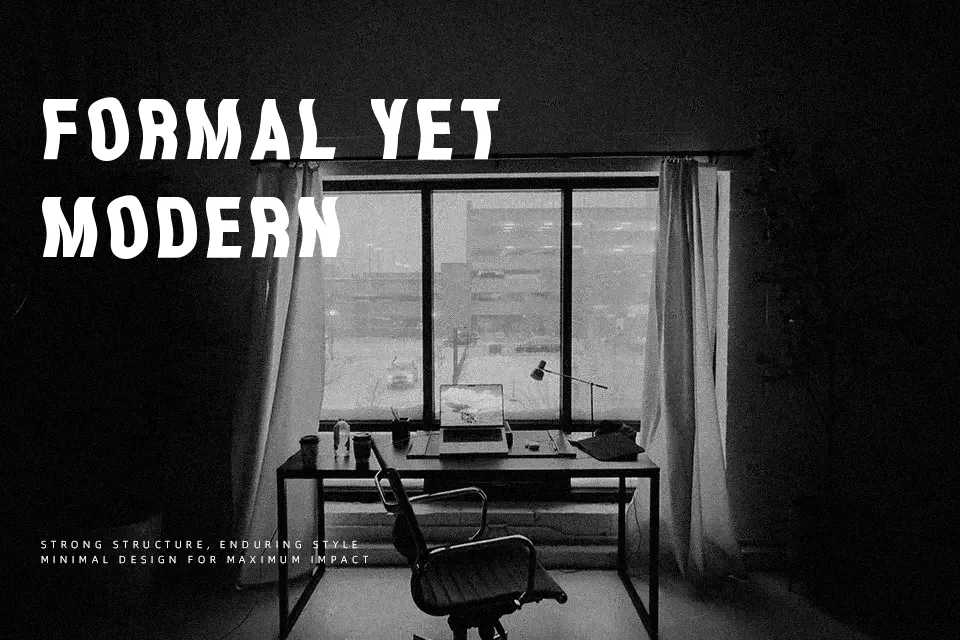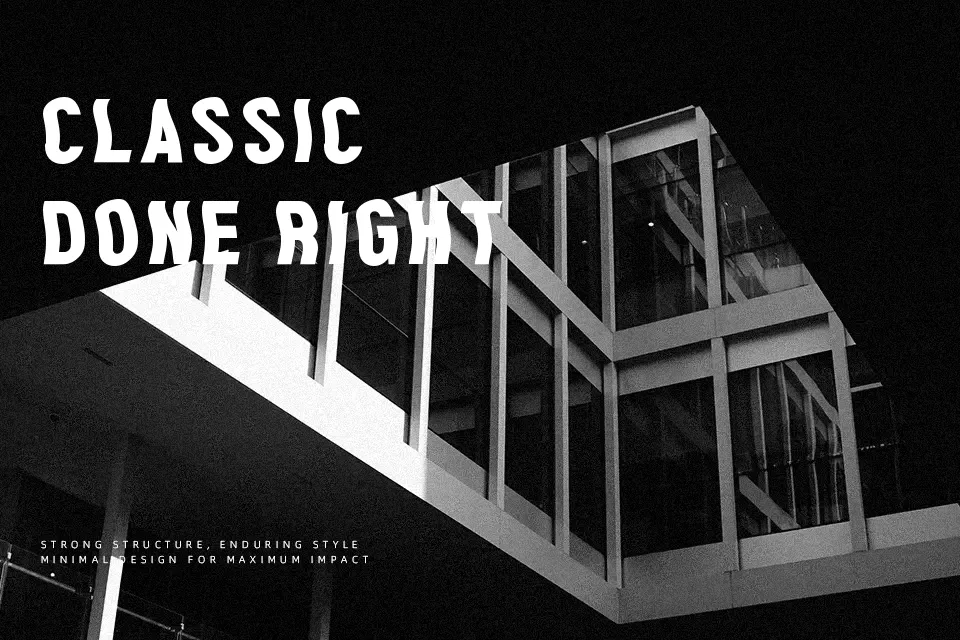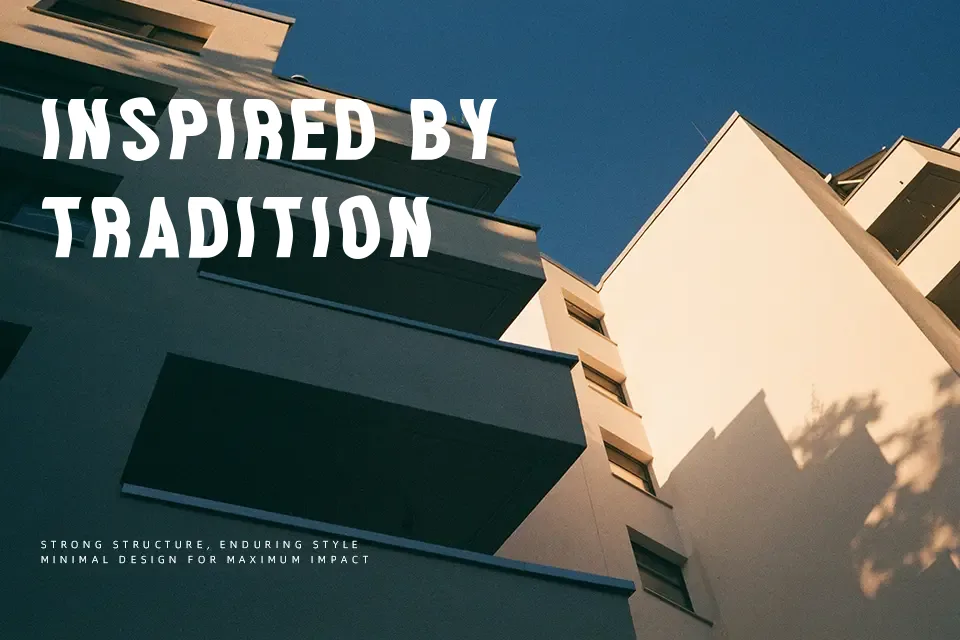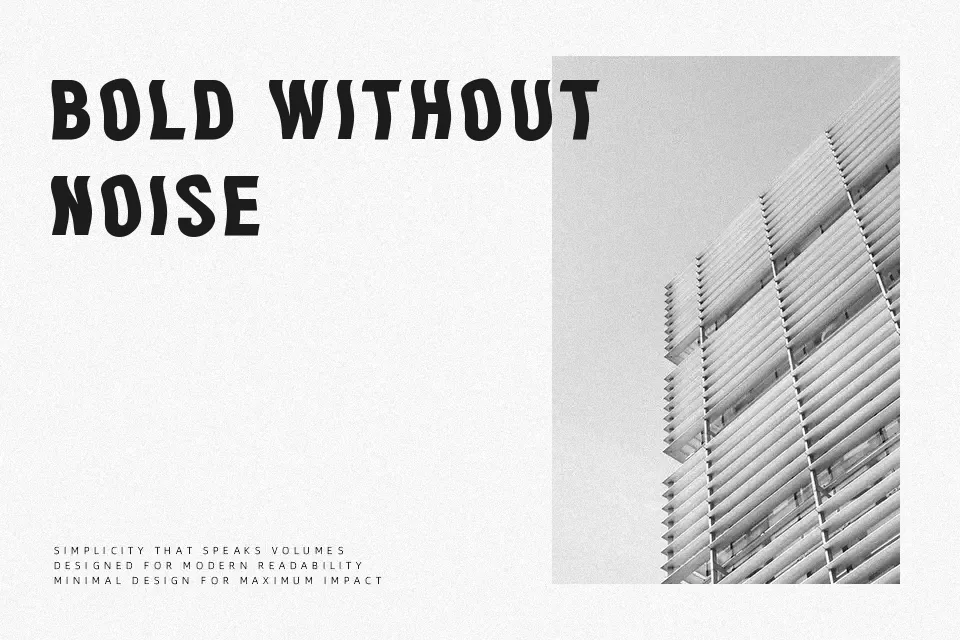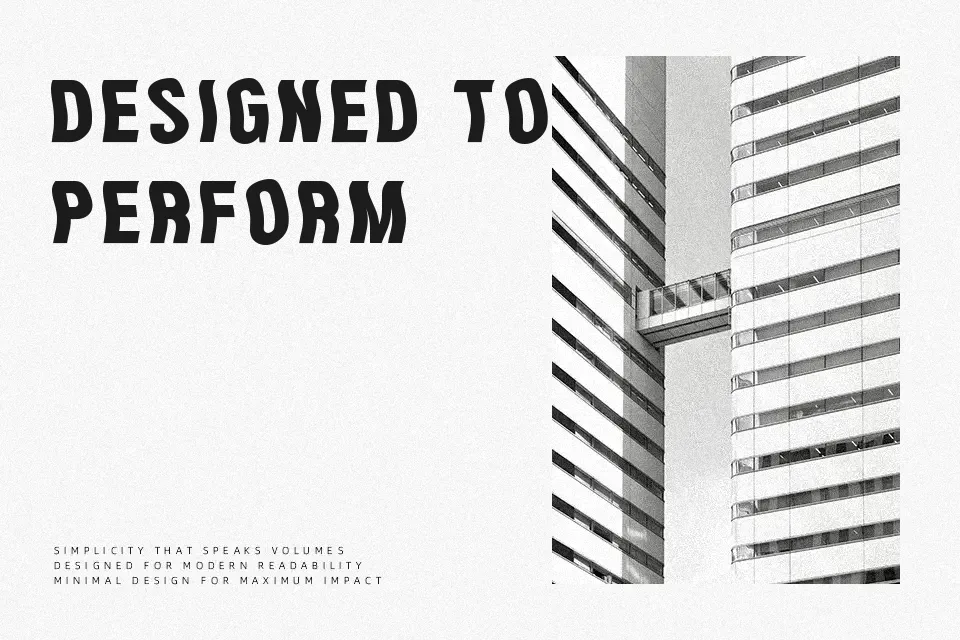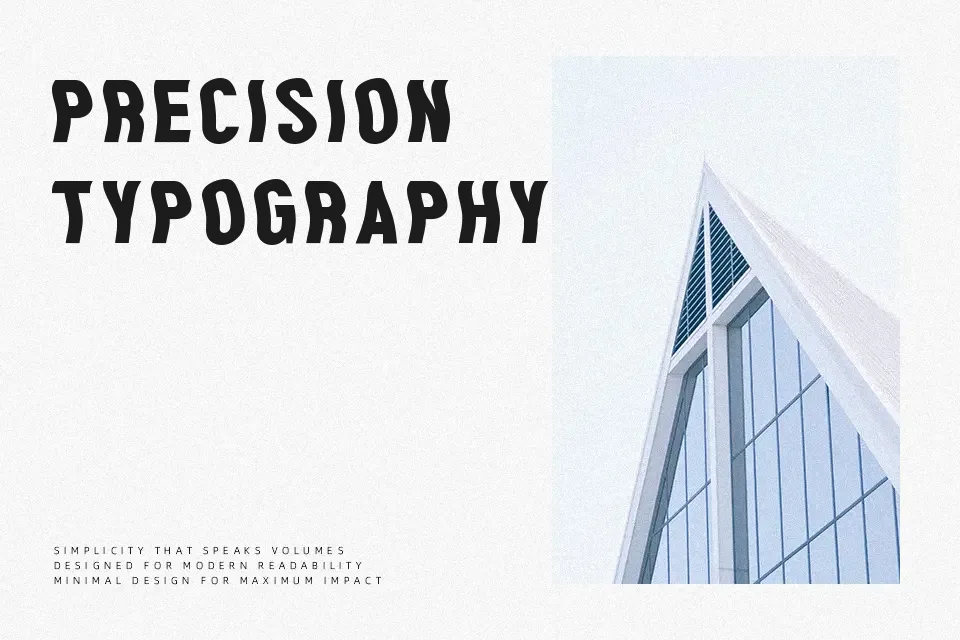
Overwave Font
Designed by Almarkhatype
Overwave Font uses thick, rounded sans serif forms interrupted by smooth horizontal wave distortions. Its broad proportions, low stroke contrast, and generally open counters keep uppercase words noticeable at display sizes, while the repeated rippling edges give the baseline and letter interiors an unsettled rhythm. Spacing appears balanced enough for short titles, logos, and cover artwork, and the numerals follow the same heavy, softened construction. The font performs best when its distortion can be seen clearly in large text. At smaller sizes, the wavy cuts and rounded details can make individual characters less immediate to read, especially in dense copy.
Best For: music cover titles,festival posters,streetwear graphics,social media headlines
Perfect for headline, logo, and music, with a bold and decorative style.